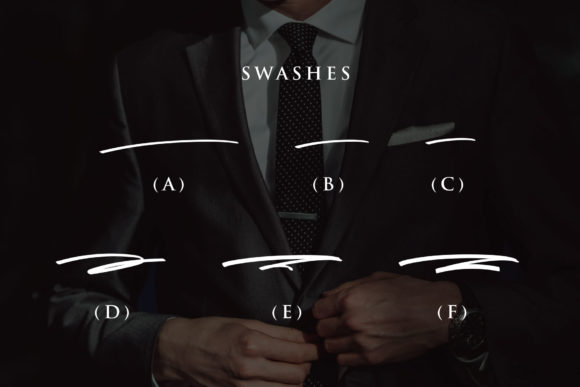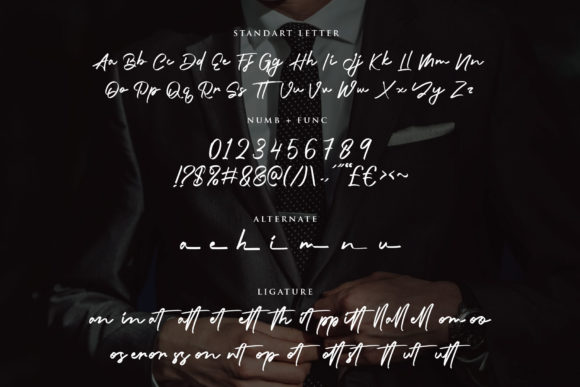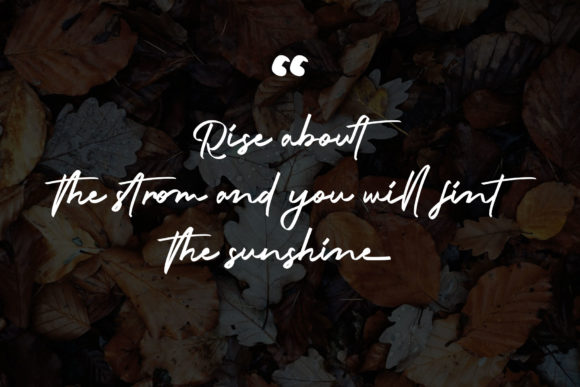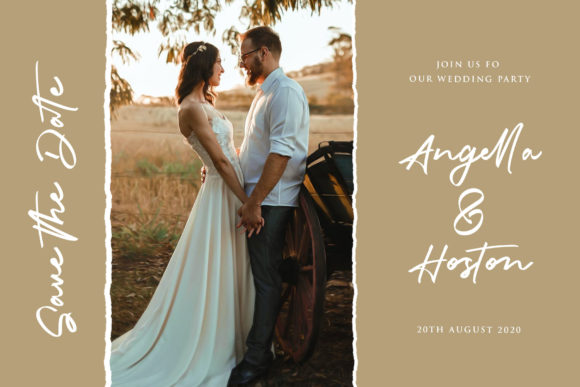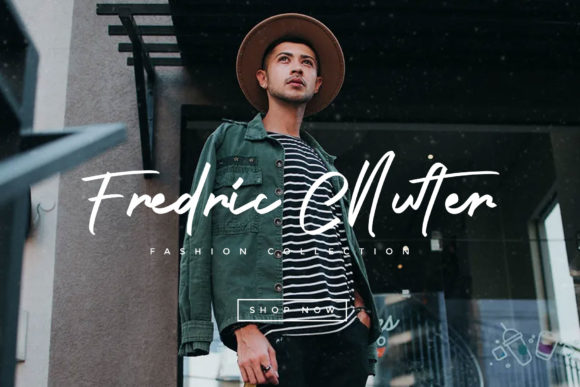
Brinattan Font
About Brinattan Font
Brinattan is a handwritten script font, with an elegant and beautiful look. It looks stunning on wedding invitations, thank you cards, quotes, greeting cards, logos, business cards and every other design which needs a handwritten touch.